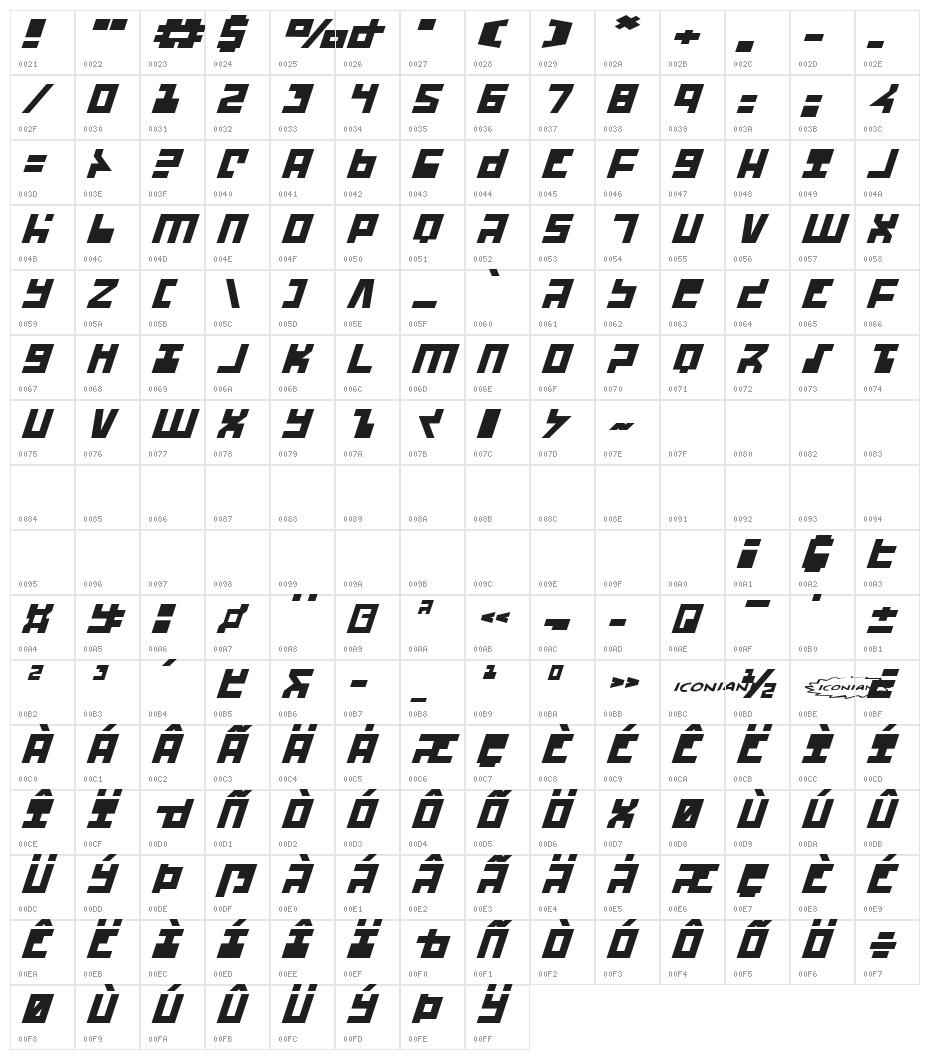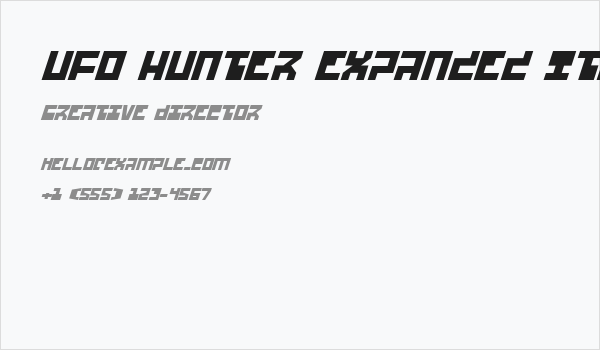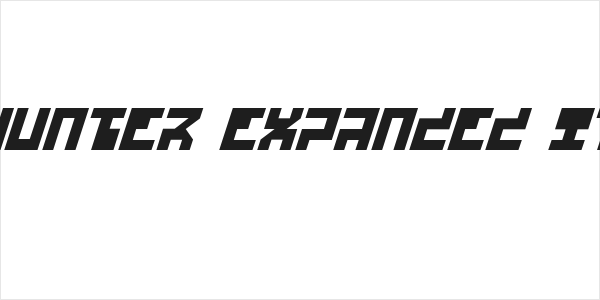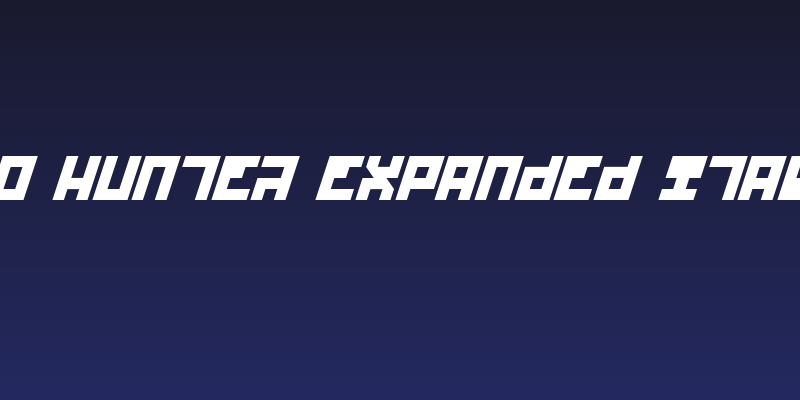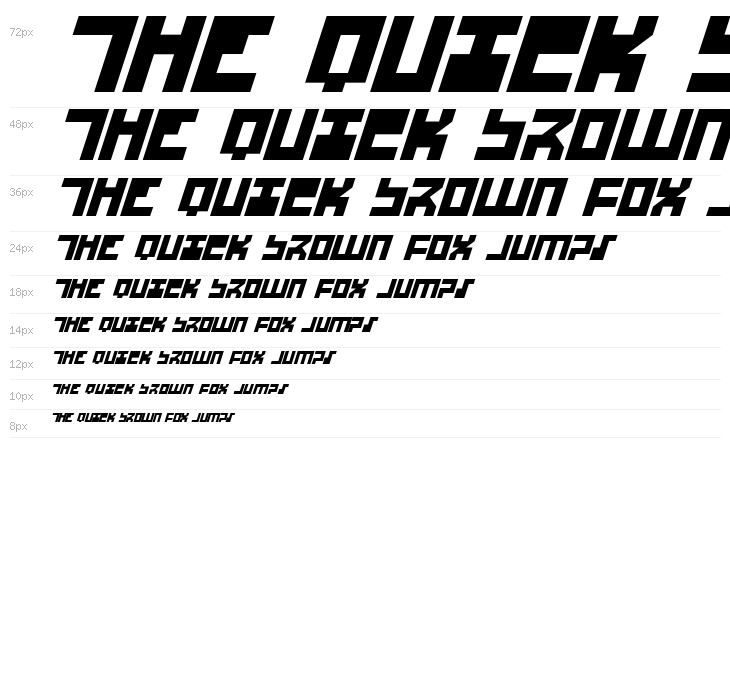
UFO Hunter Expanded Italic Font
UFO Hunter Expanded Italic Description
This font features a bold, futuristic design with an expanded and italicized style. The characters are geometric and angular, giving a sense of movement and speed. The uppercase and lowercase letters maintain a consistent style, with sharp edges and a slightly slanted orientation. Numbers and special characters follow the same design principles, ensuring uniformity across all glyphs. The font's boldness and expanded width make it highly visible and impactful, suitable for attention-grabbing applications.
| Proposed Projects | Ideal for sci-fi themed projects, video game titles, movie posters, and branding that requires a modern, edgy look. |